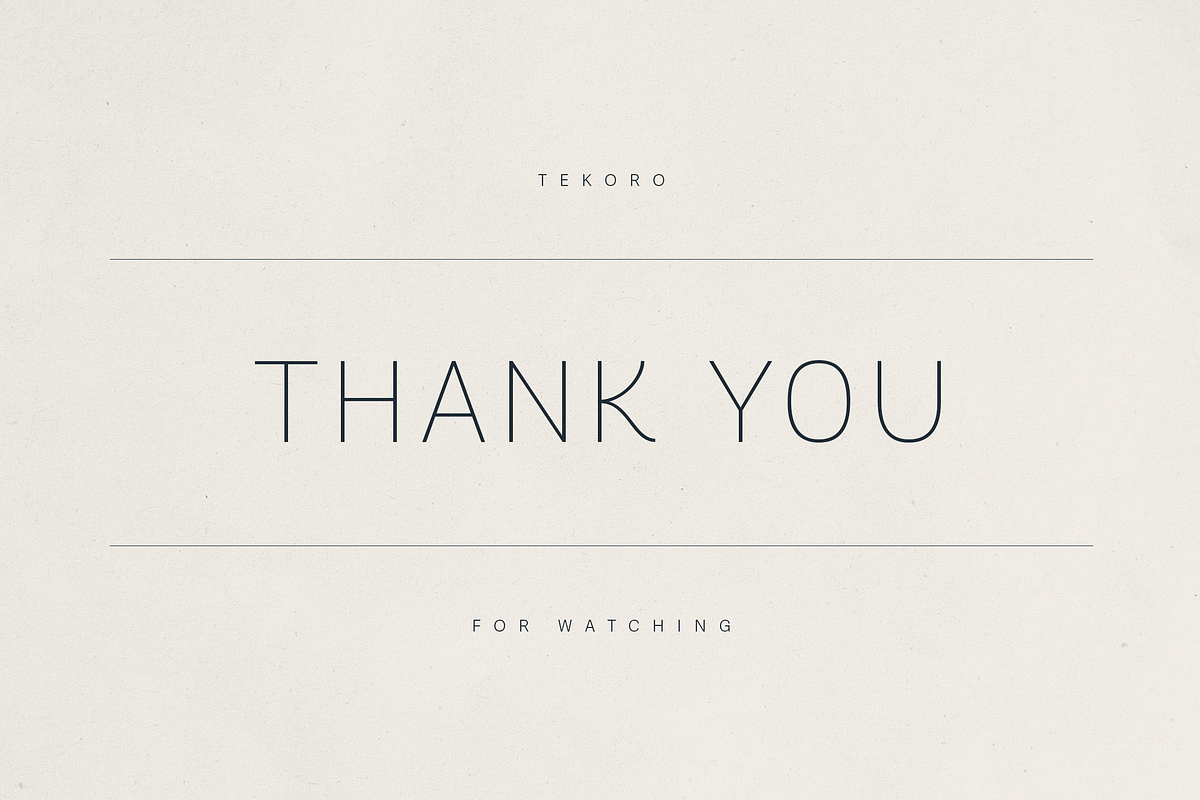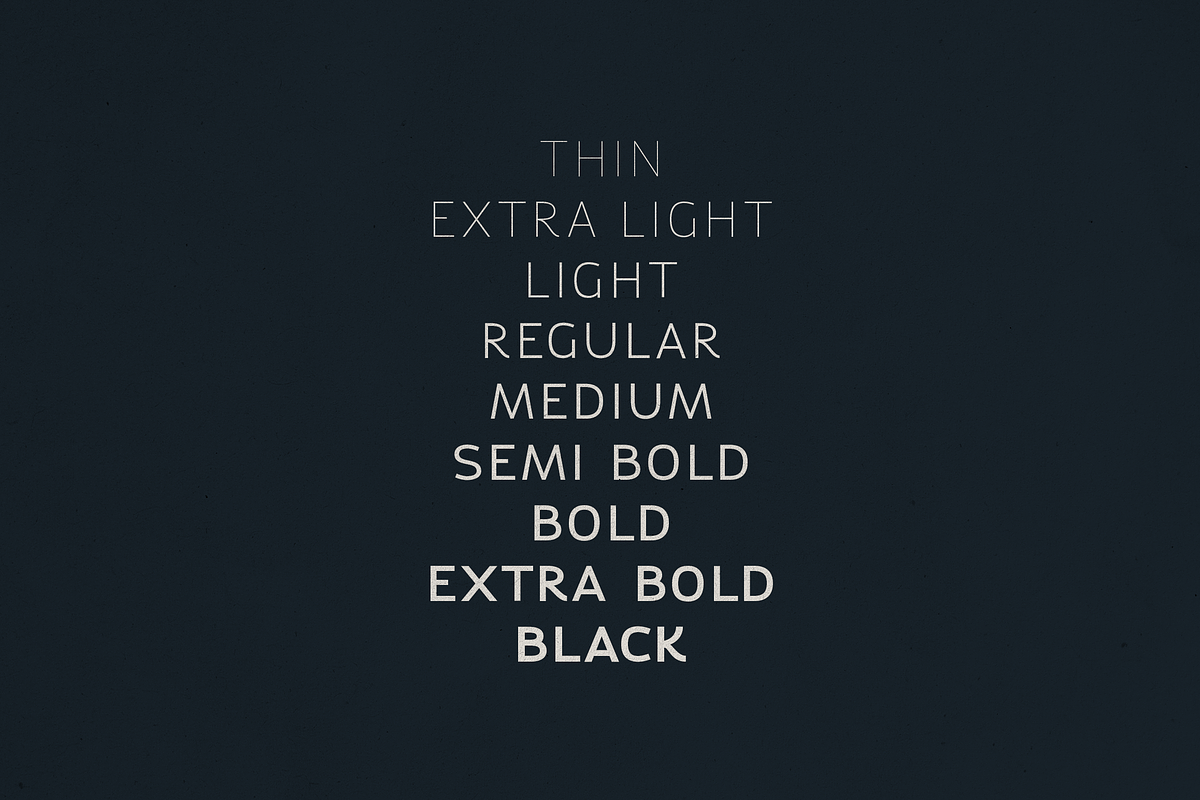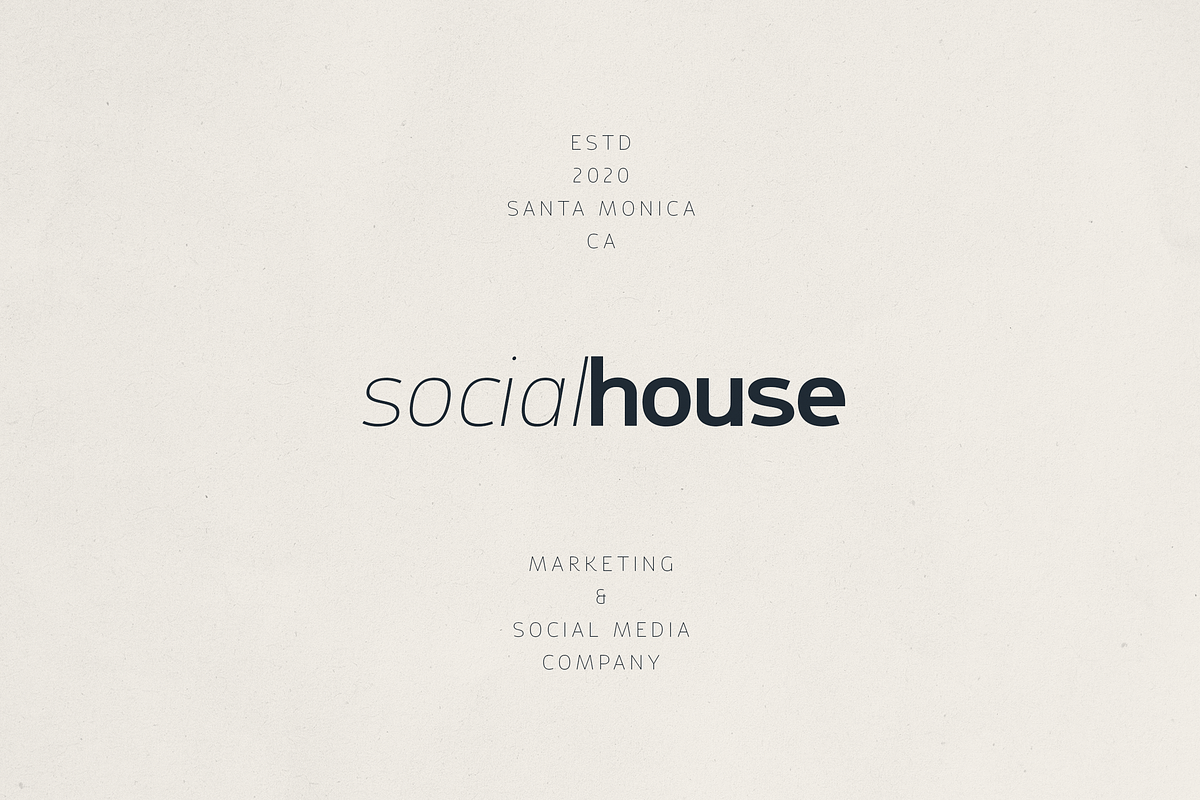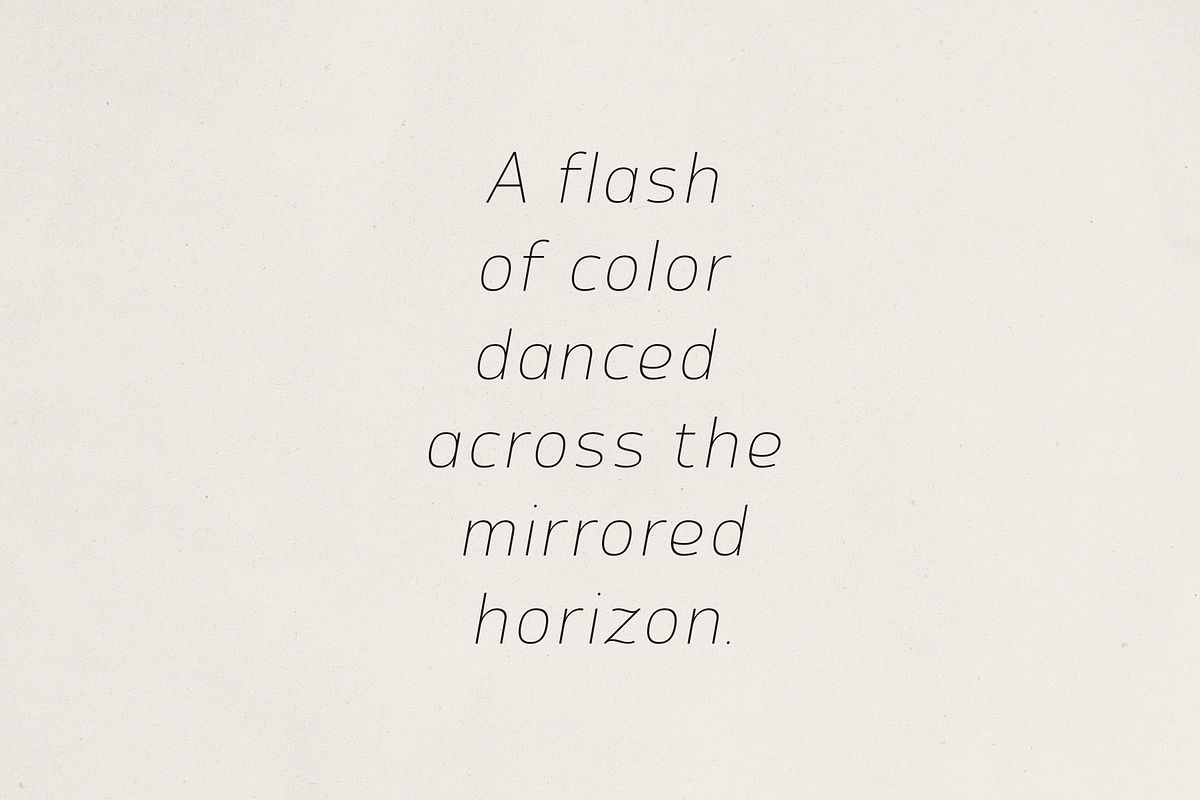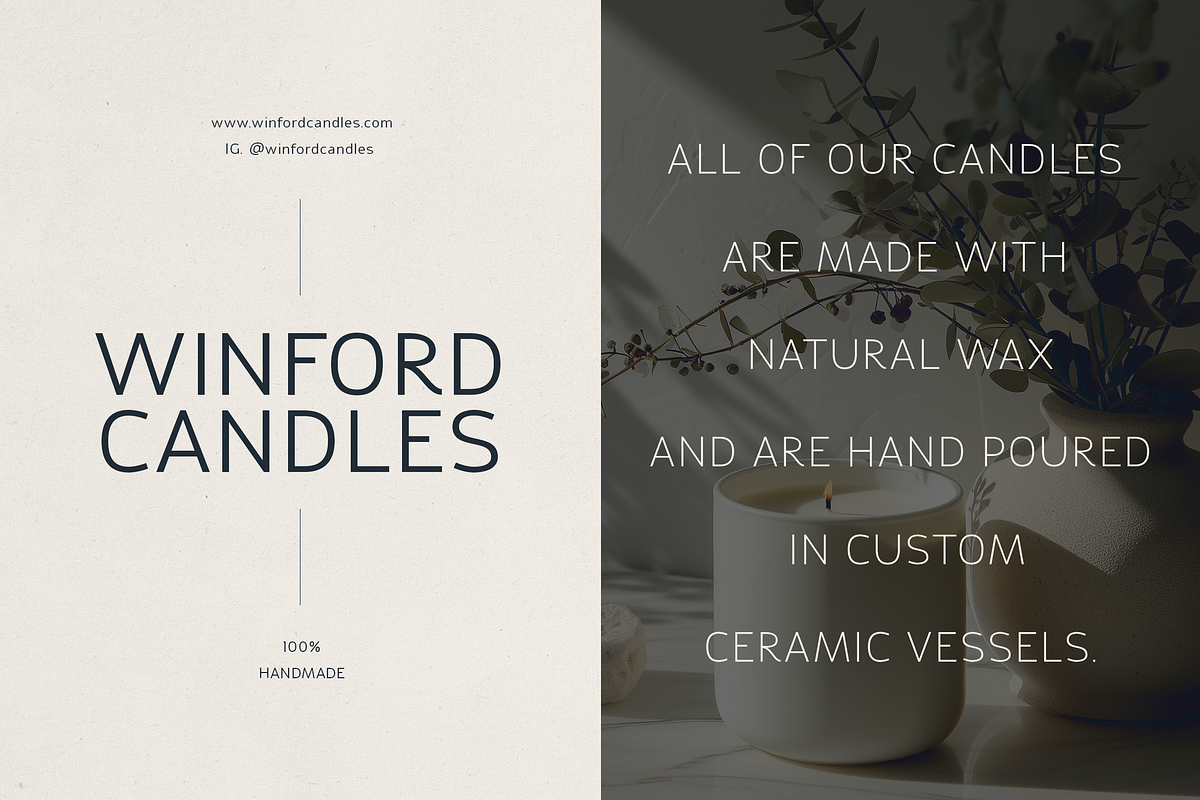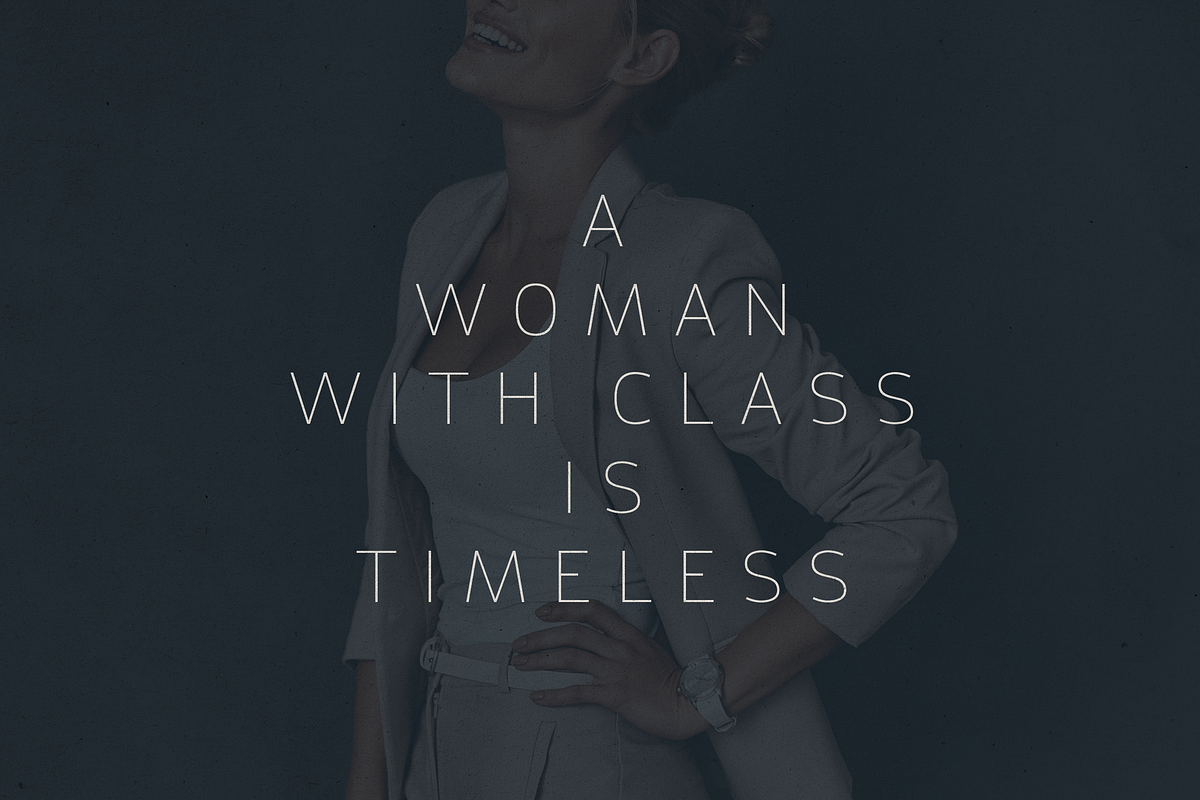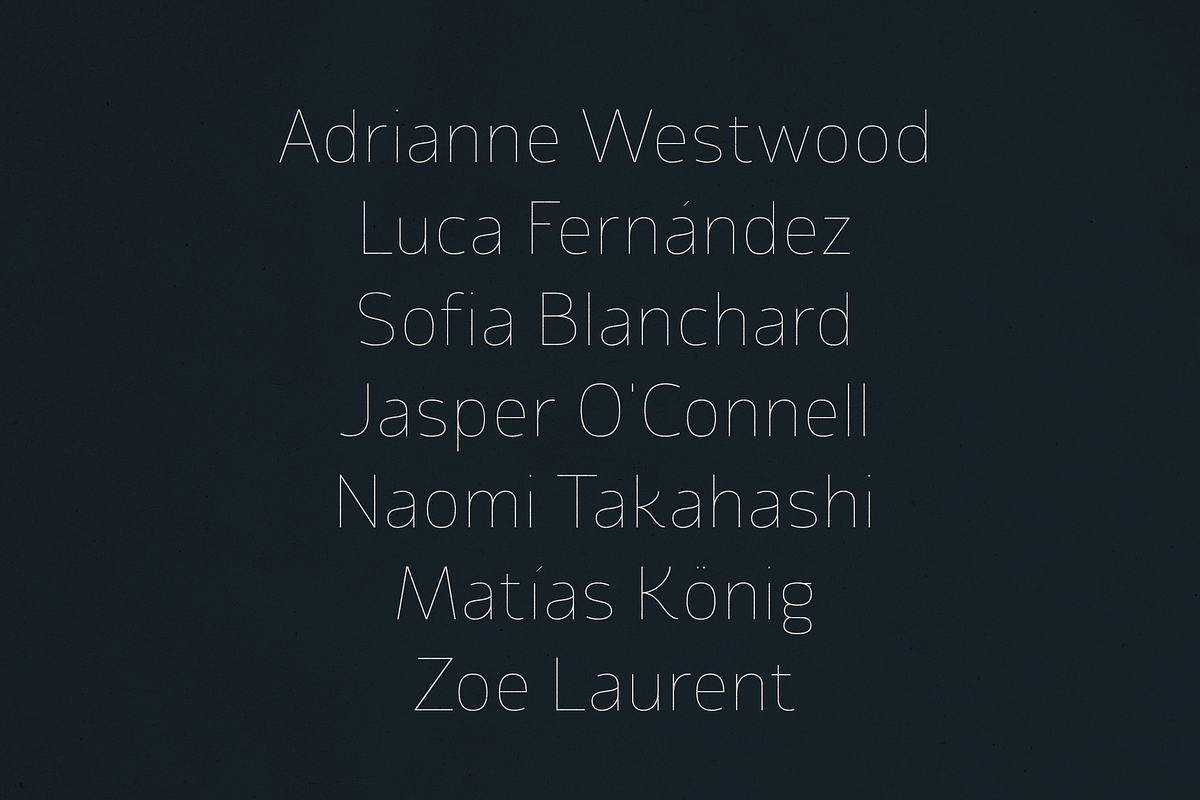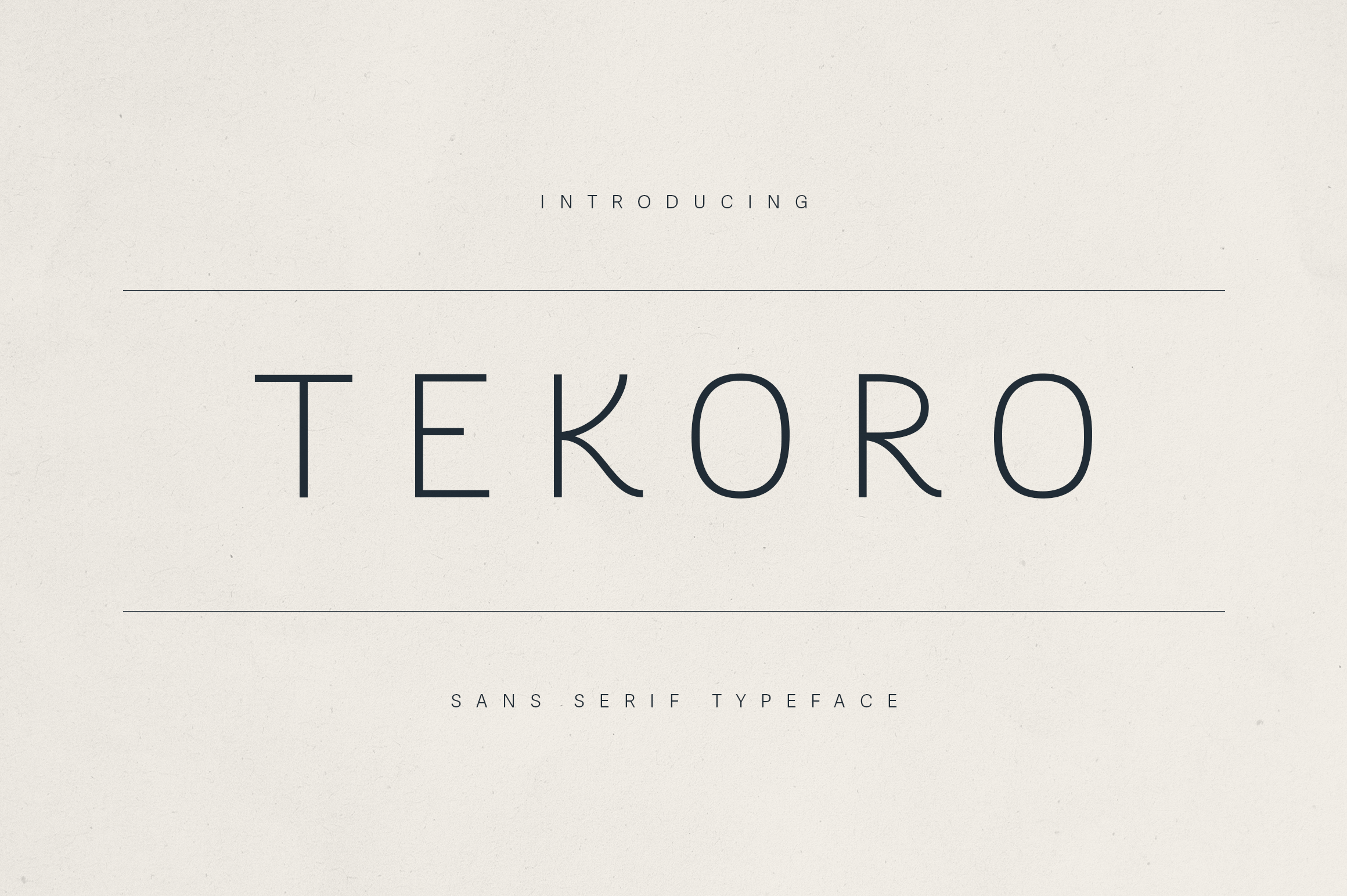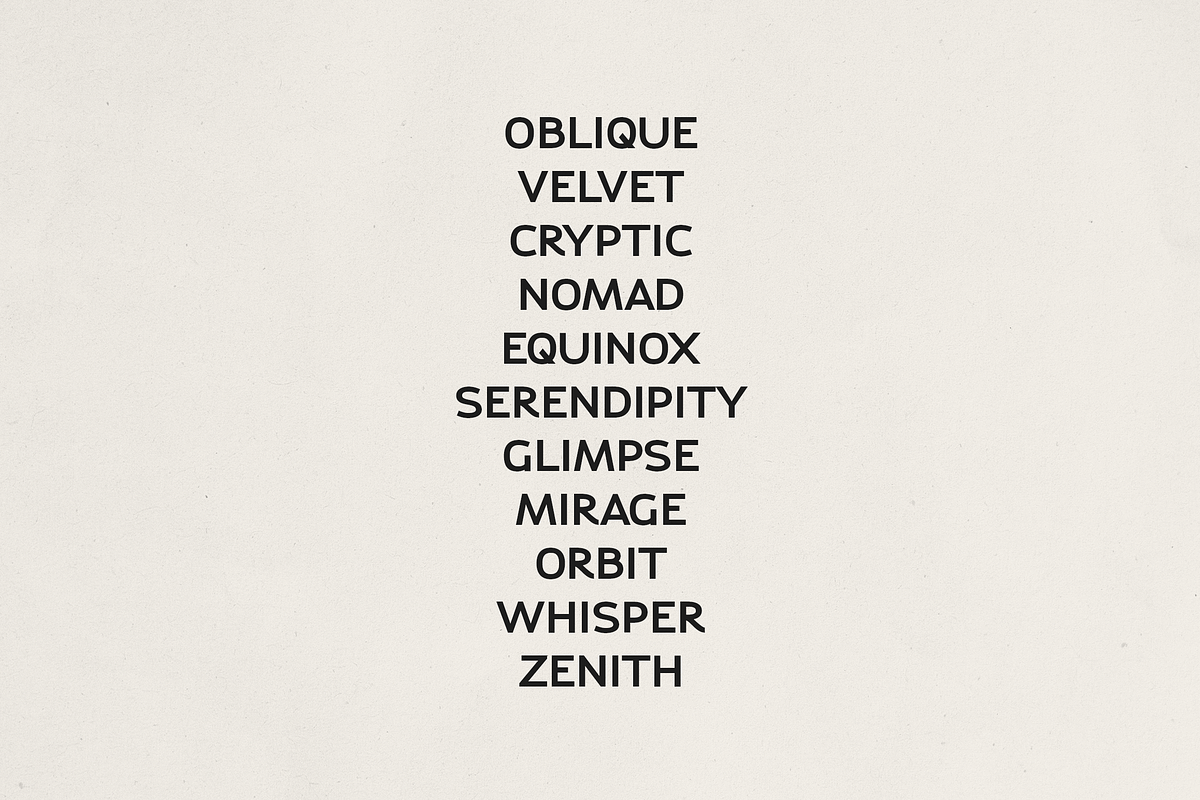
Tekoro – Sans Serif Typeface
Tekoro – Minimalist Geometric Sans Serif Typeface
Tekoro is a sleek and sophisticated sans serif font built with geometric precision and minimalist elegance. Designed for modern branding, UI design, packaging, and editorial use, Tekoro brings clarity, style, and a contemporary touch to any project. Its clean lines, subtle quirks, and rounded terminals give it both functionality and character, making it perfect for premium lifestyle brands, startups, and creative professionals.
Tekoro comes with 9 weights from Thin to Black, supports 85+ languages, and includes complete uppercase, lowercase, numbers, punctuation, symbols, and multilingual accents. Whether you're designing a fashion brand identity, a digital product interface, or an elegant magazine spread, Tekoro adapts effortlessly across mediums.
This typeface is fully equipped for both print and digital applications and is ideal for logos, posters, social media graphics, websites, and minimalist product packaging.